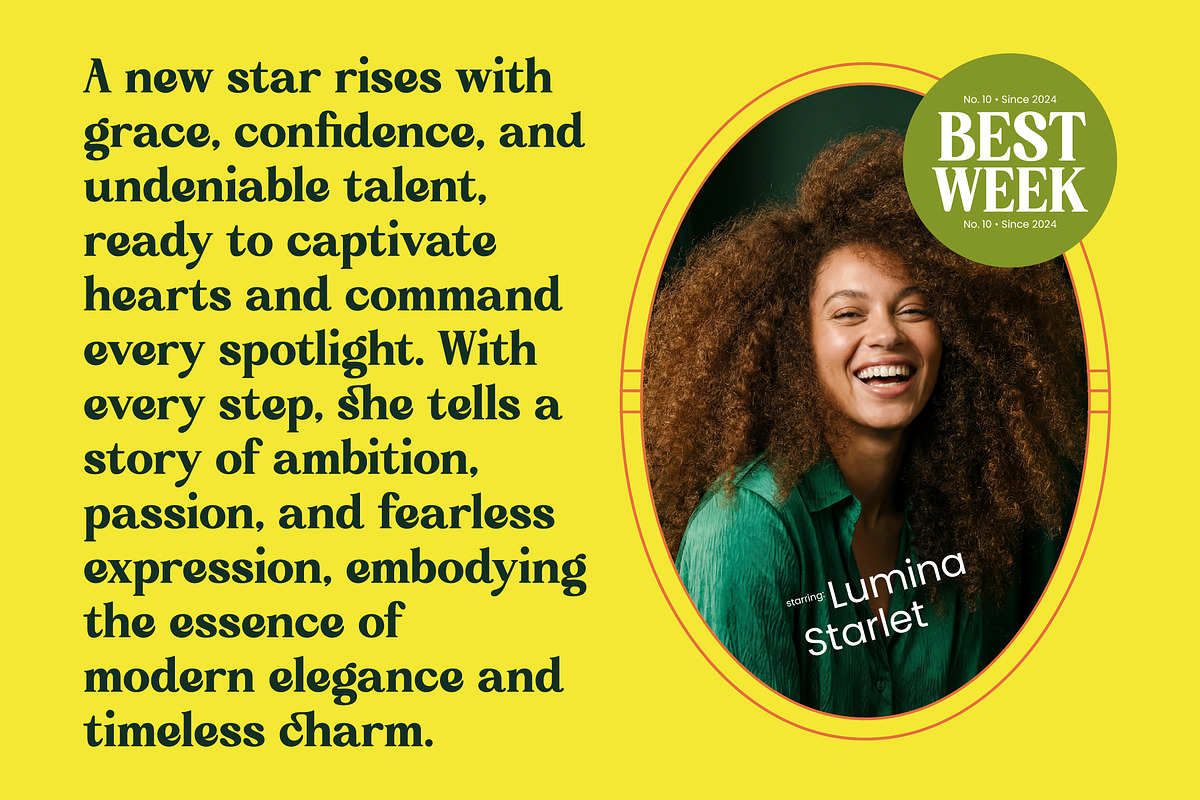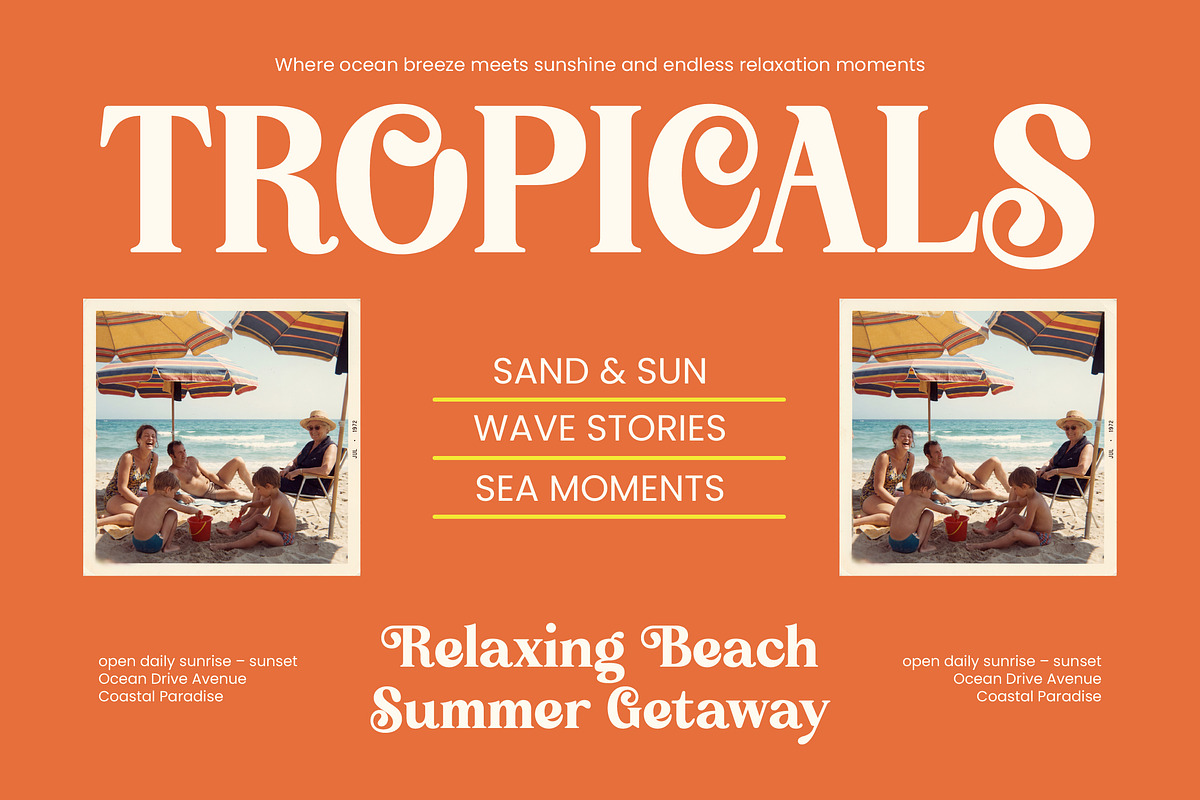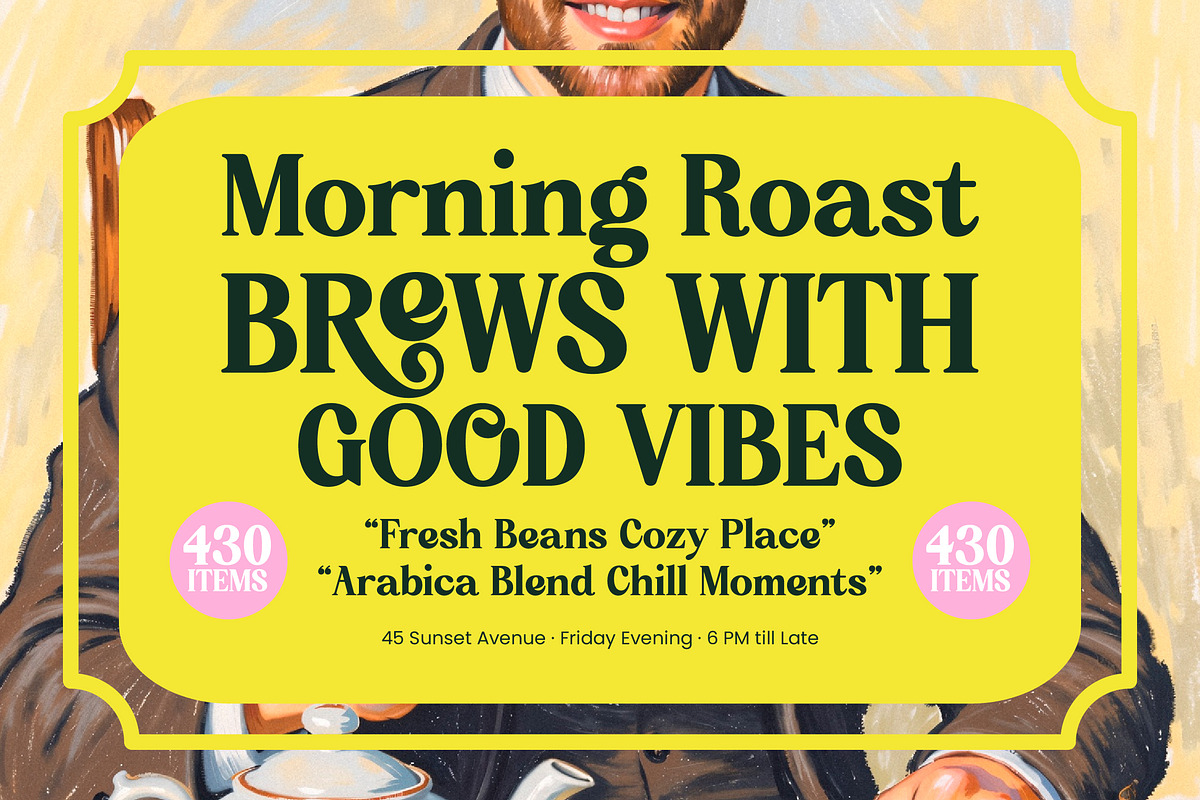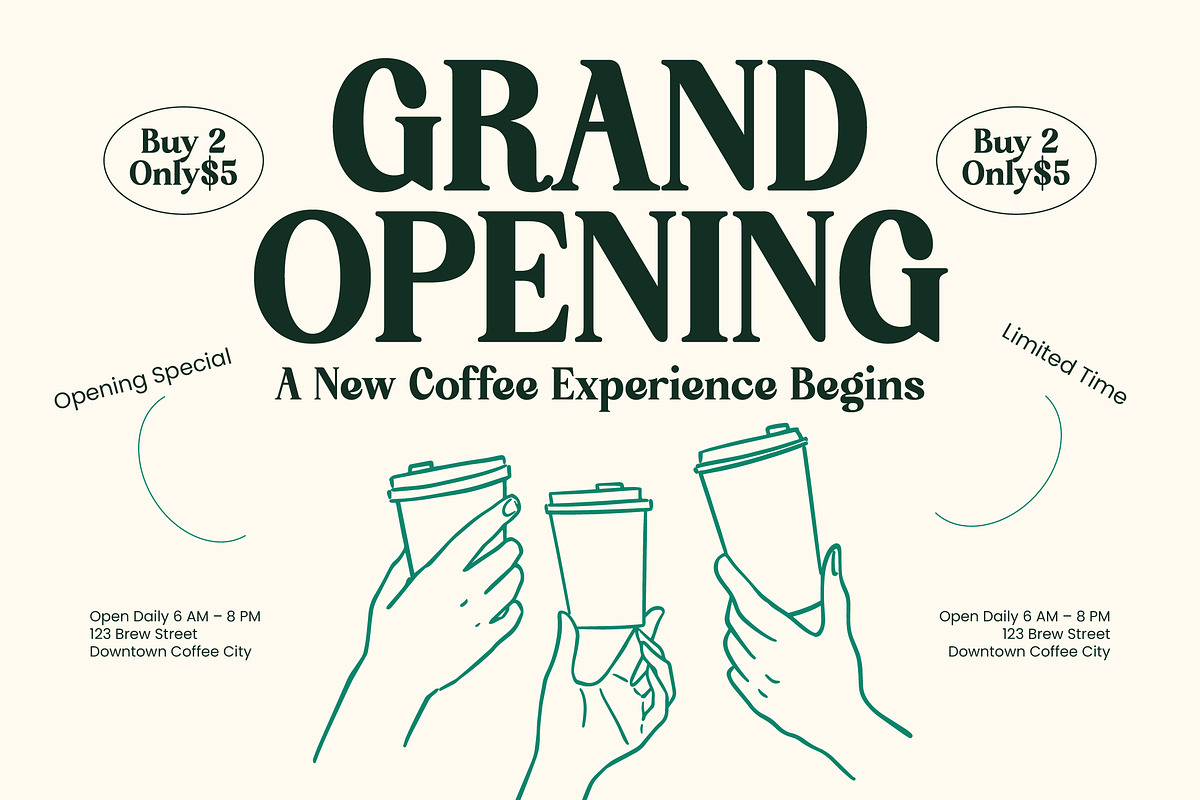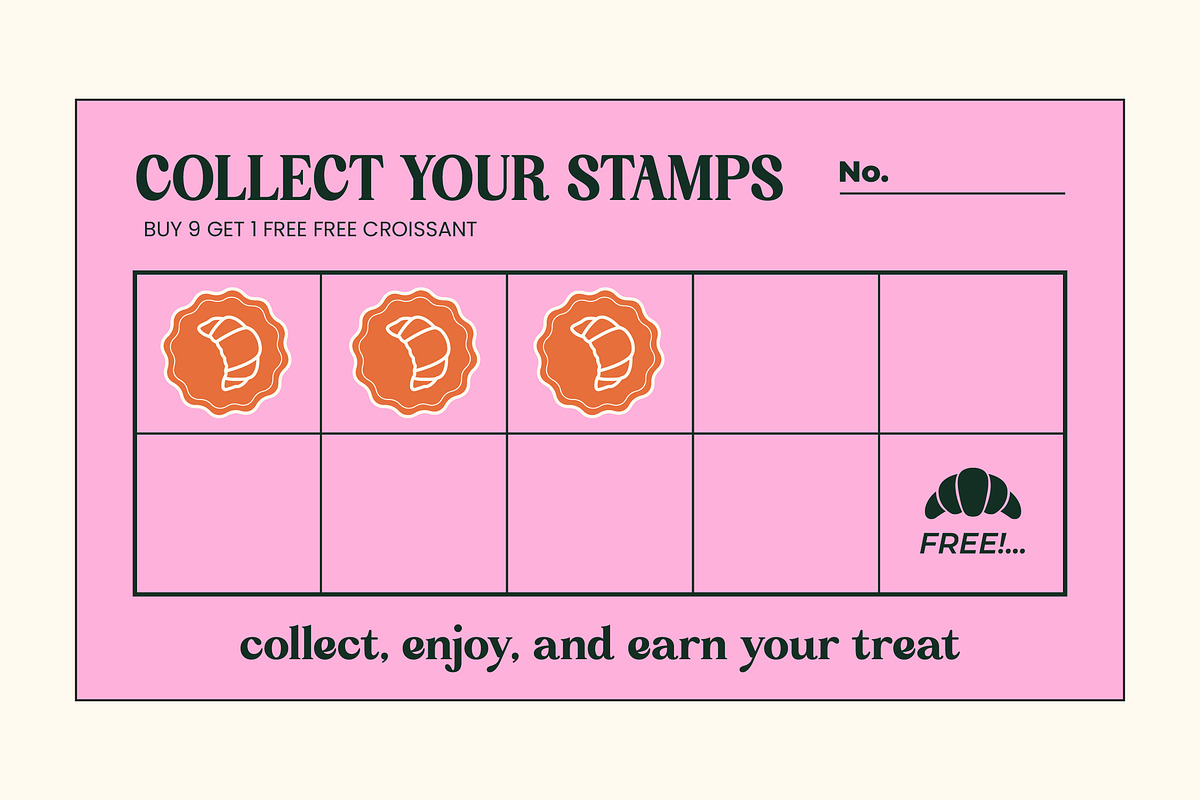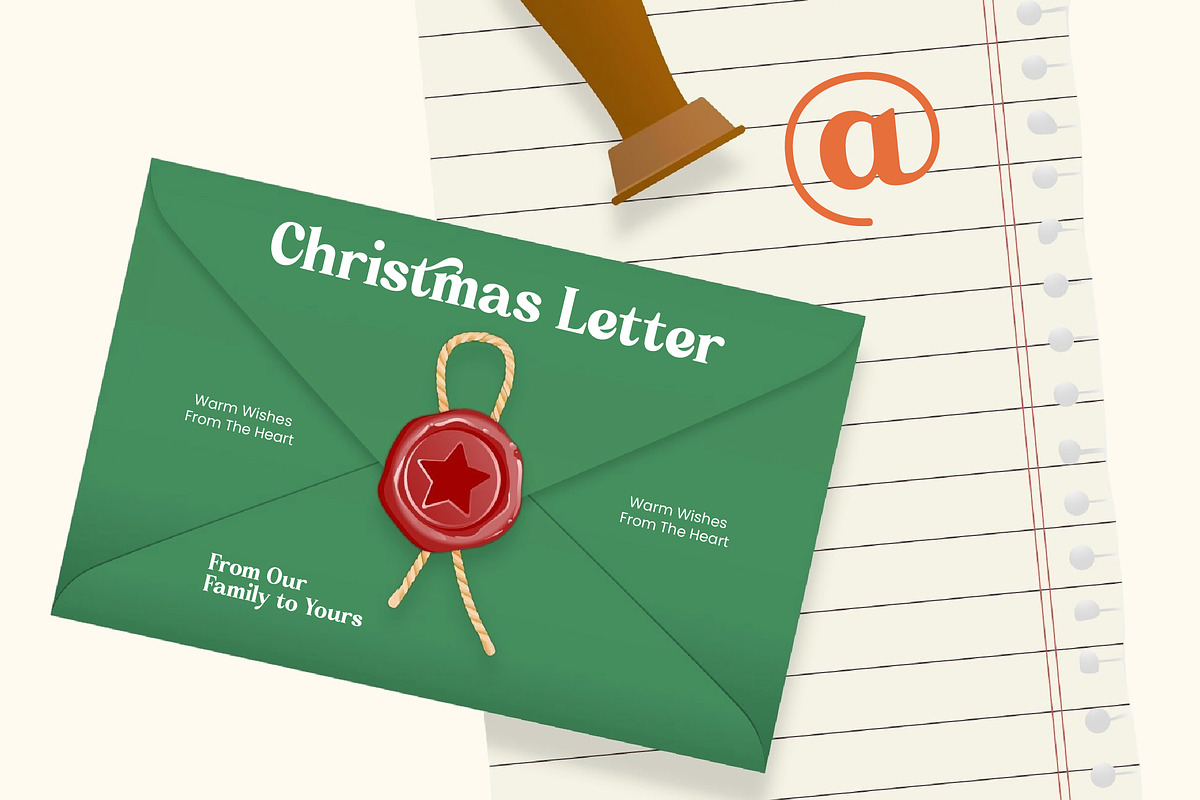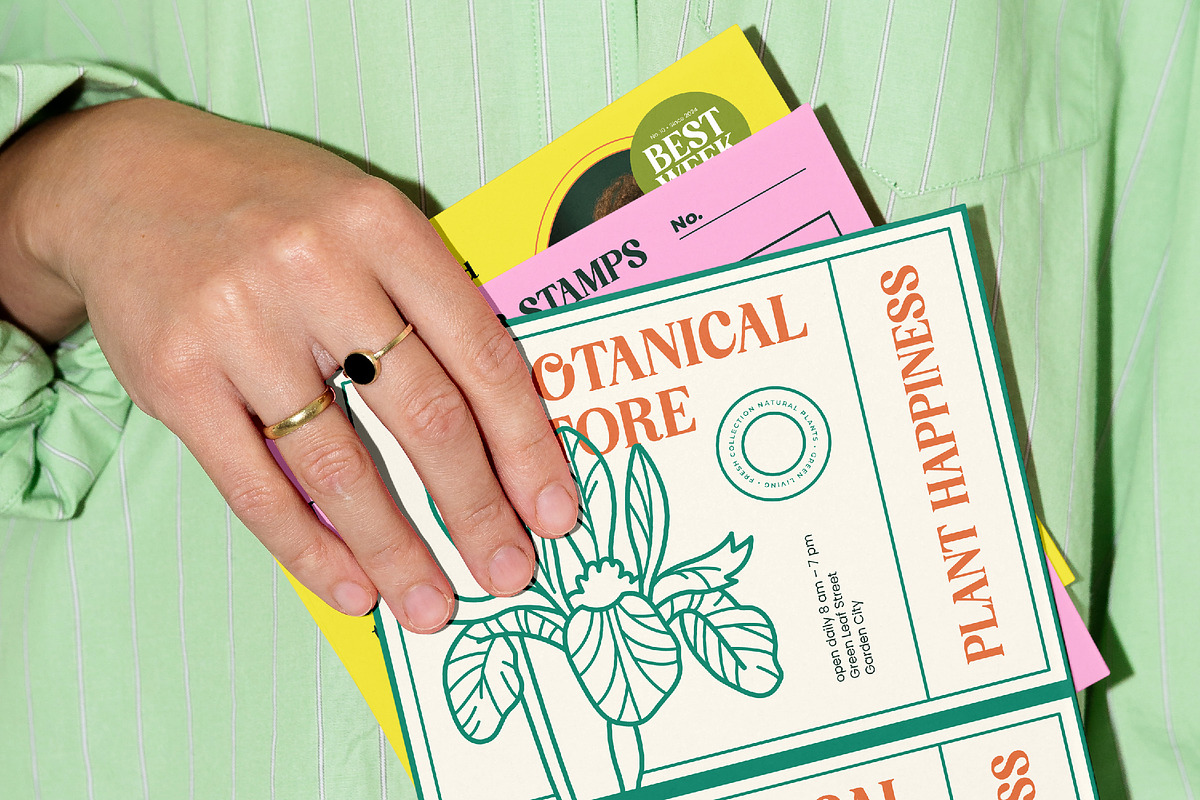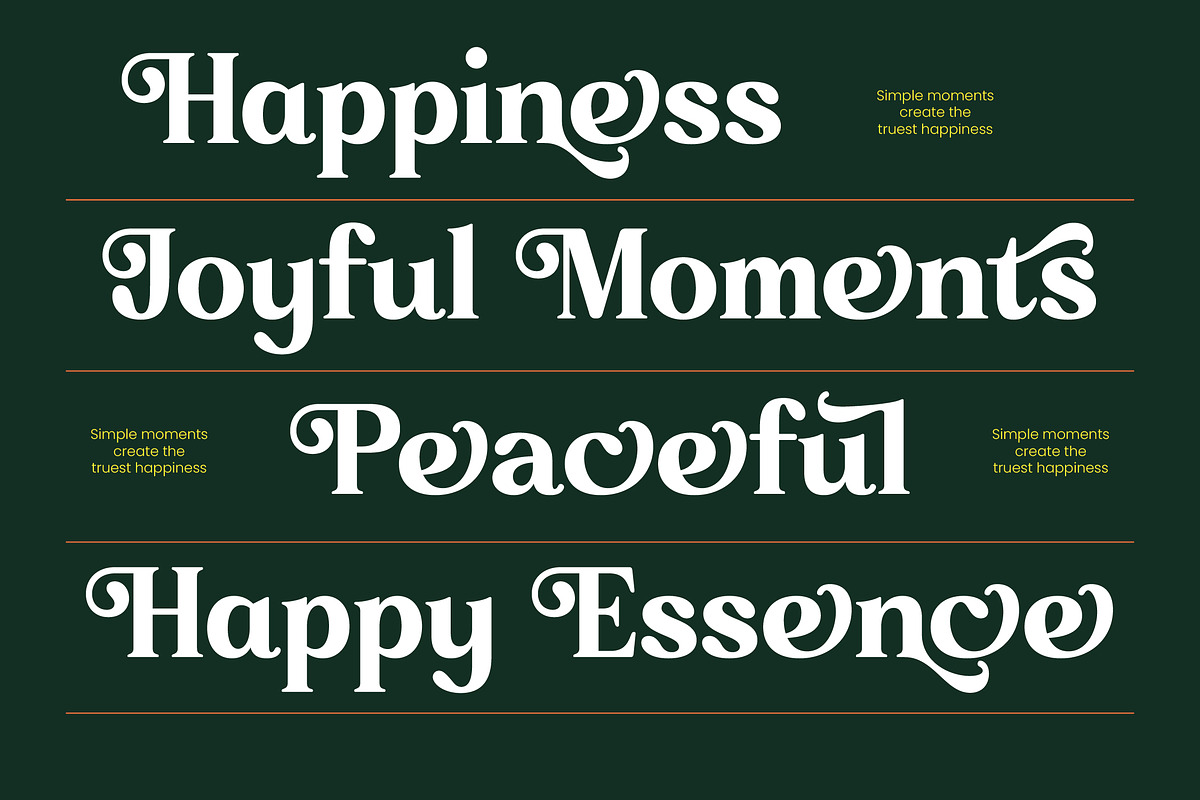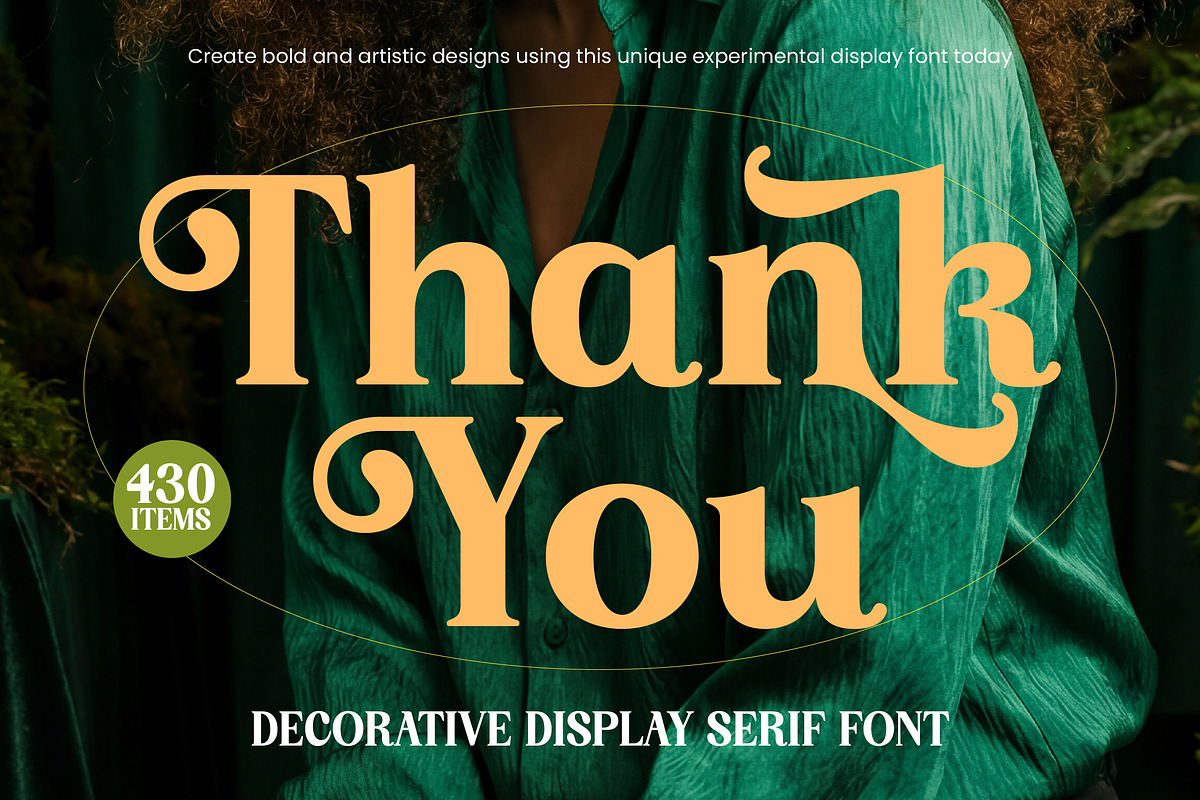
Broken Relent Decorative Serif
Broken Relent - Decorative Display Serif Font , Elevate your creative vision with the striking aesthetic of Broken Relent - Decorative Display Serif Font. This experimental display face masterfully blends vintage Art Nouveau influences with modern sophistication, resulting in a high-contrast typeface that commands immediate attention. Its fluid, sweeping curves and bold strokes are designed to infuse any project with a sense of artistic flair and luxury branding excellence, ensuring your message is delivered with unrivaled character and visual impact.
Versatility is at the heart of Broken Relent - Decorative Display Serif Font, providing designers with an expansive toolkit of 430 total items. Featuring 26 unique ligatures and 73 stylistic alternates, this font allows for a highly customized typographic experience. Whether you are crafting a bespoke logotype or an expressive headline, these decorative elements ensure that every word feels hand-crafted and perfectly balanced for professional-grade design and high-end aesthetics.
Expand your creative reach across borders with ease by utilizing a typeface designed for international impact. With its extensive multilingual support, Broken Relent - Decorative Display Serif Font adapts seamlessly across global markets, making it incredibly versatile for international projects. This broad linguistic compatibility ensures that your visual identity remains consistent and impactful regardless of the region, providing a unified brand voice in an increasingly globalized design landscape.
Perfectly suited for high-end applications, Broken Relent - Decorative Display Serif Font is the ultimate choice for luxury packaging, fashion editorial design, and premium advertising. It is perfect for creating memorable brand assets, elegant book covers, and sophisticated event invitations that require a bold, artistic touch. Transform your digital and print media into iconic masterpieces by integrating the timeless elegance and dynamic energy of this exceptional display font.
Ligatures and Alternative Style Stylistic Set